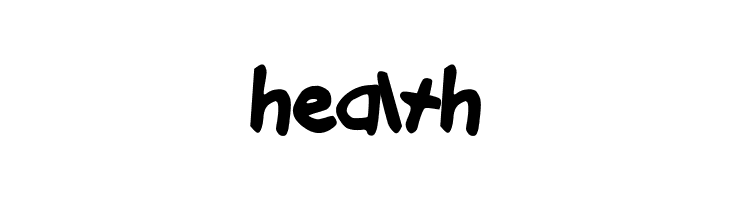
A bold, rounded font with a playful and friendly style.
A playful, bold handwritten font with thick strokes and rounded edges.
A playful, hand-drawn font with a whimsical and informal style.